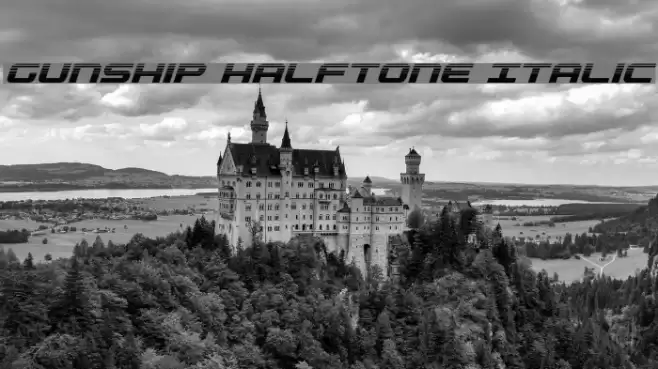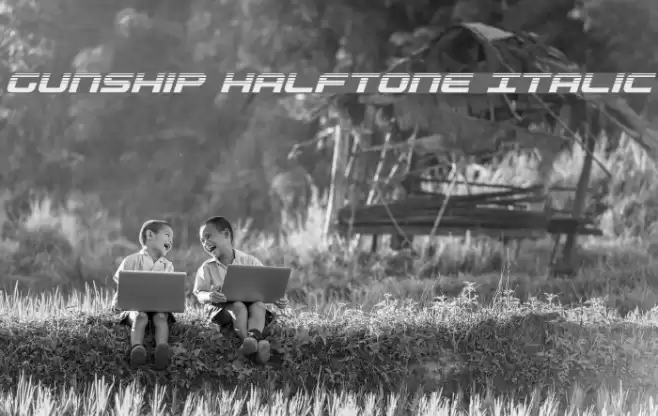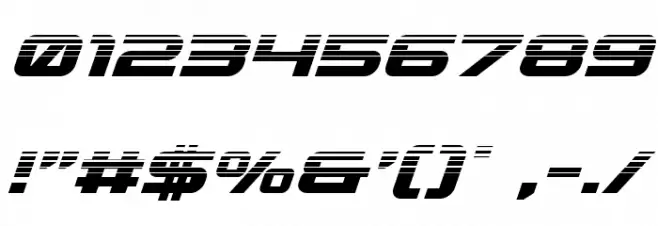
Gunship Halftone Italic Font
Gunship Halftone Italic Description
This font features a bold, futuristic design with a distinct halftone effect that gives it a dynamic and energetic appearance. The italicized style adds a sense of motion and speed, making it ideal for projects that require a modern and edgy look. The characters are wide and have a unique pattern of horizontal lines that create a sense of depth and dimension. The overall aesthetic is both technical and stylish, suitable for various digital and print applications.
A bold, futuristic italic font with a halftone effect and dynamic style from Uncategorized fonts.
- Proposed Projects: Ideal for video game titles, tech branding, sci-fi posters, and modern advertising campaigns.
- Width: Expanded